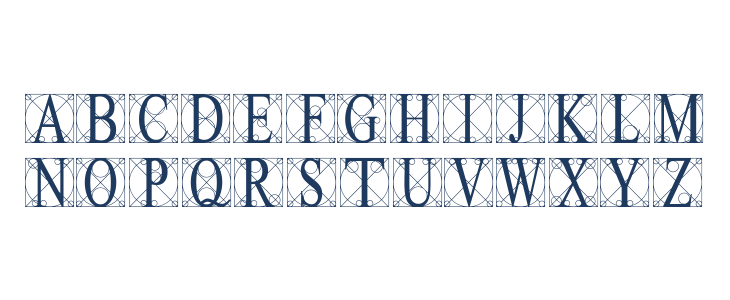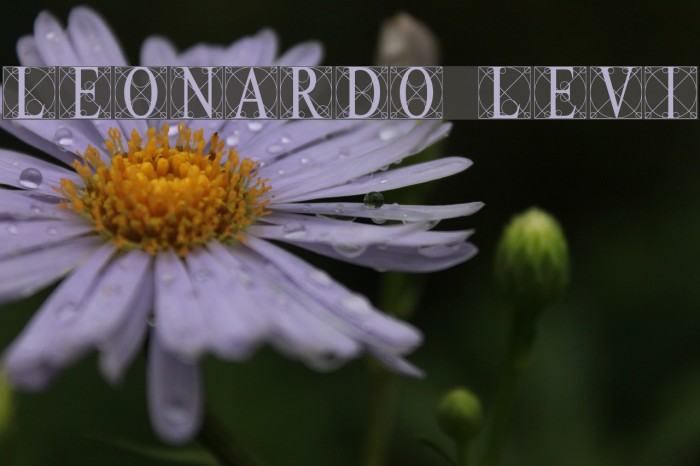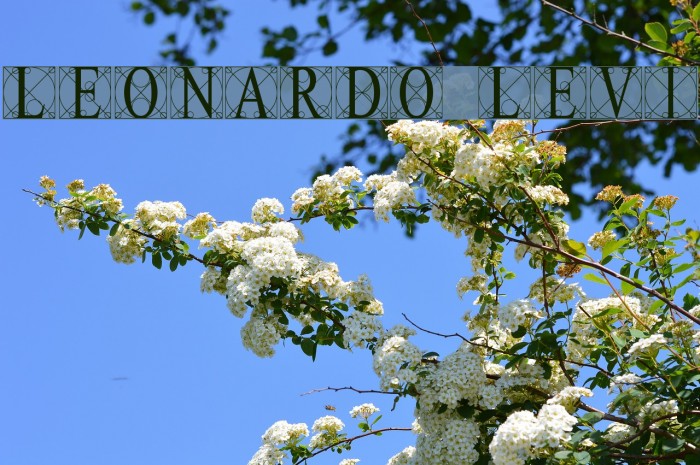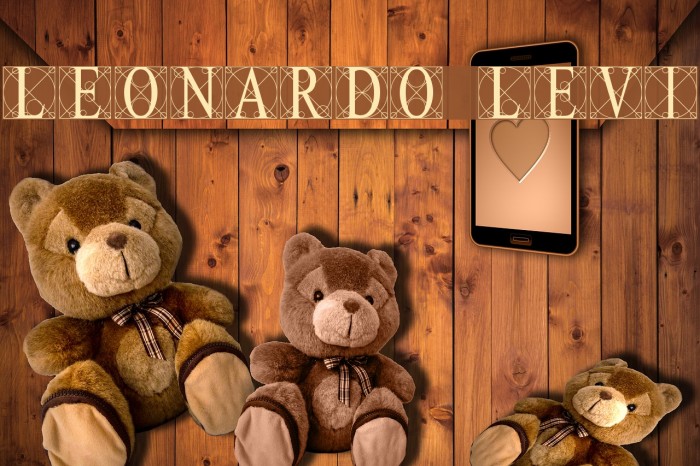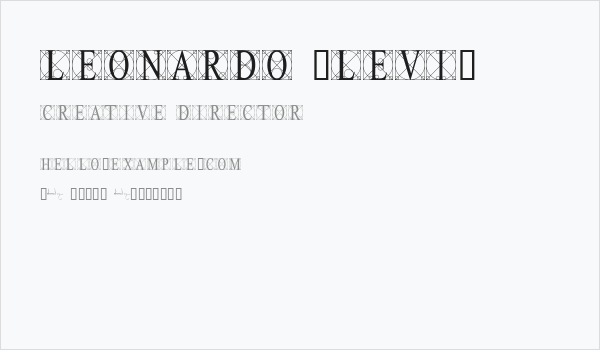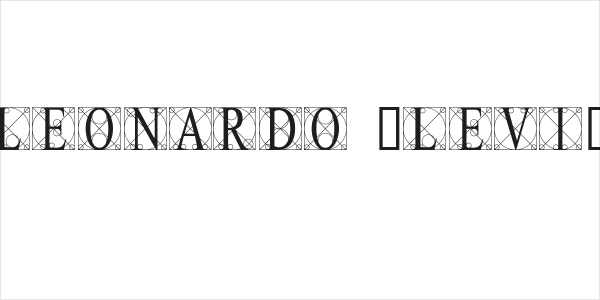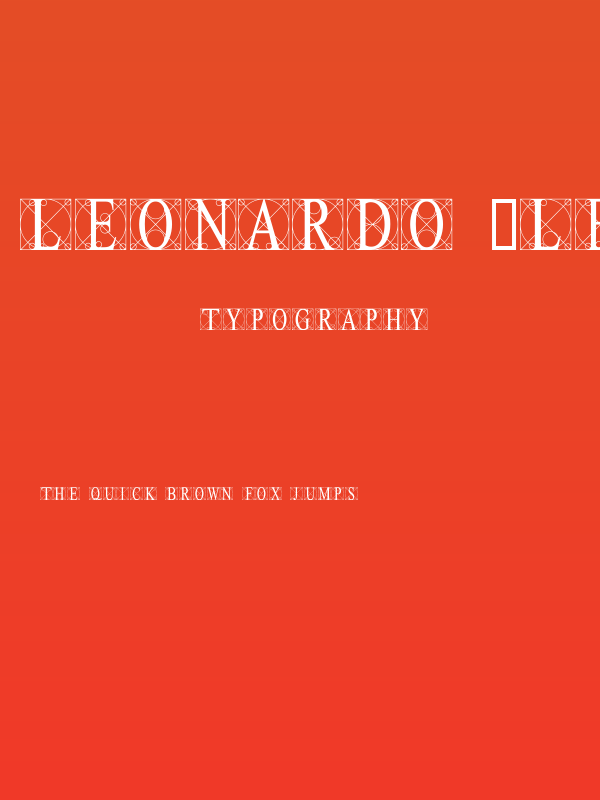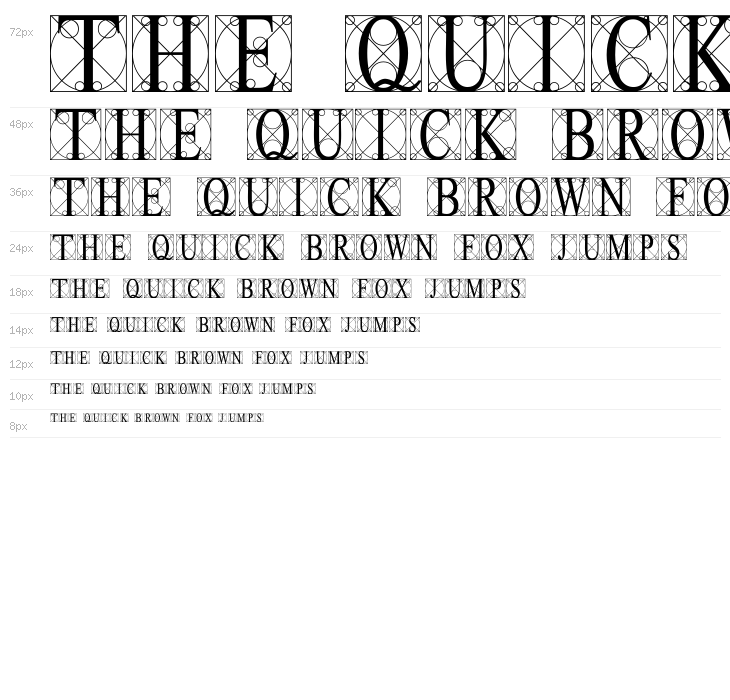
Leonardo [Levi] Font
Leonardo [Levi] Description
This font features a unique and intricate design, characterized by its decorative and artistic elements. Each letter is enclosed within a square grid, adorned with geometric patterns and flourishes that evoke a sense of complexity and elegance. The uppercase letters are bold and structured, while the lowercase letters maintain a similar style with a slightly more delicate touch. The numbers and special characters follow the same ornate theme, ensuring a cohesive look throughout. This font is ideal for projects that require a touch of sophistication and creativity, making it suitable for artistic and decorative purposes.
| Use Case | Logos, Invitations, Artistic Projects |
| Proposed Projects | Ideal for artistic projects, decorative invitations, branding, and creative designs. |